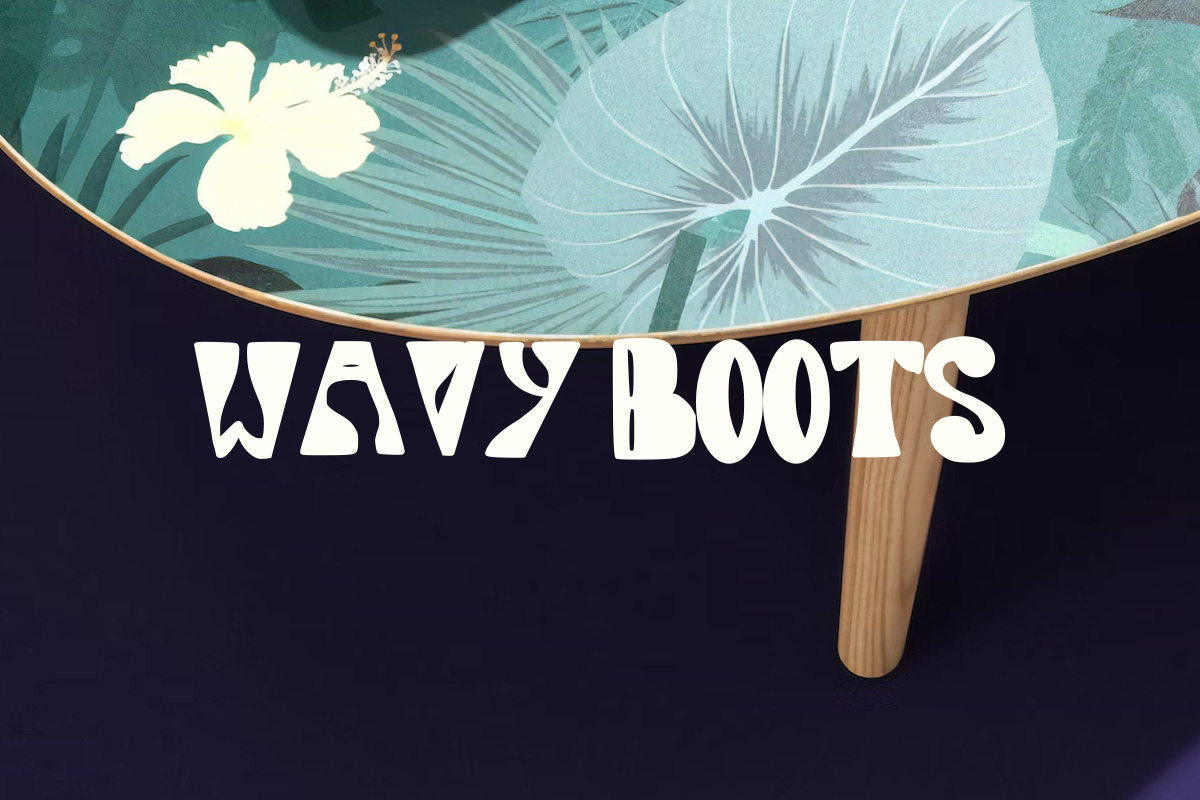
Wavy Boots | Funky Decorative Font
Funky, eccentric and retro all at the same time, this fun and bubbly font is all yours, and you can use it on all your personal, web and commercial needs.